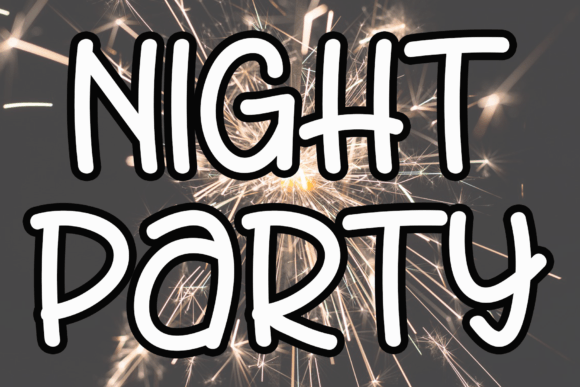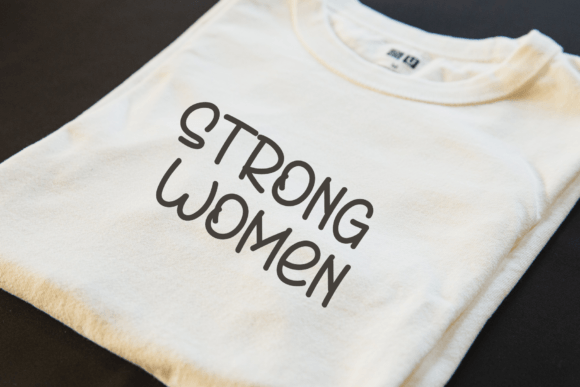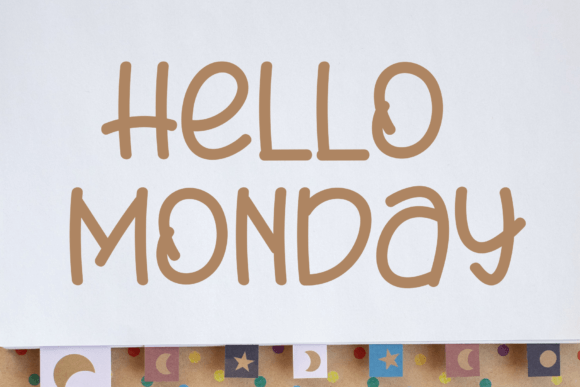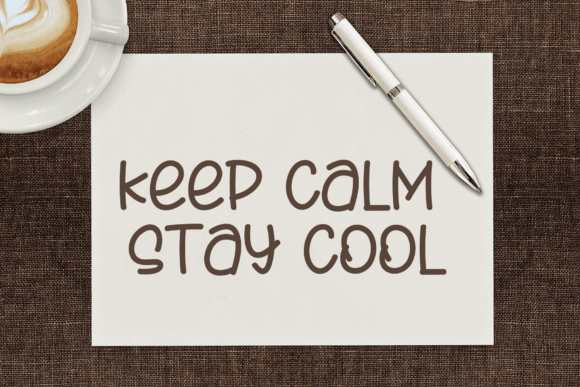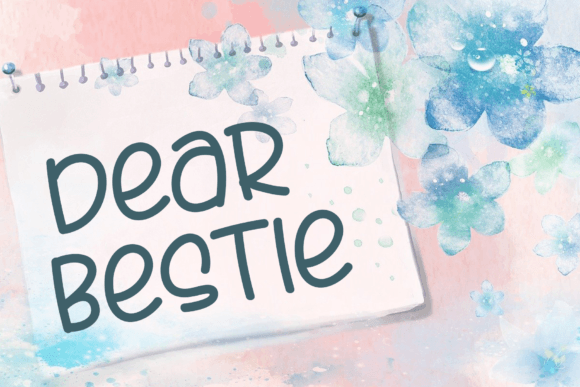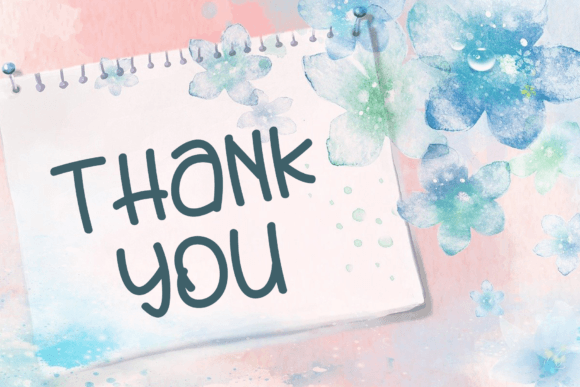
Happy New Year Font: The Ultimate Guide to a Cool and Modern Sans-Serif Font
As the clock strikes midnight on December 31st, we bid adieu to the old year and welcome the new one with open arms. What better way to celebrate this joyous occasion than with a font that’s just as vibrant and exciting? Introducing the Happy New Year Font, a cool and modern sans-serif font that’s perfect for crafts, digital design, presentations, and creating stunning greeting cards.
What Makes Happy New Year Font So Special?
Happy New Year Font is more than just a font – it’s an experience. Its clean and sleek design makes it versatile enough to be used for a wide range of projects, from DIY crafts to professional presentations. Whether you’re a designer, crafter, or simply someone who loves to get creative, this font has the potential to become your go-to font for any occasion.
Key Features of Happy New Year Font
- Modern Sans-Serif Design: Happy New Year Font boasts a modern sans-serif design that’s perfect for creating visually appealing projects.
- Clean and Legible: The font’s clean lines and simple shapes make it easy to read and understand, even at small sizes.
- Versatile: Use Happy New Year Font for crafts, digital design, presentations, greeting cards, and more.
Uses for Happy New Year Font
Happy New Year Font is perfect for a variety of projects, including:
- Crafts: Use Happy New Year Font to add a personal touch to your DIY crafts, such as scrapbooking, card making, and iron-on designs.
- Digital Design: Create stunning digital projects, such as social media graphics, blog posts, and email newsletters, with Happy New Year Font.
- Presentations: Add a professional touch to your presentations with this modern and clean font.
- Greeting Cards: Create beautiful and personalized greeting cards for any occasion, including New Year’s Eve, birthdays, and holidays.
Tips for Using Happy New Year Font
Here are some tips for getting the most out of Happy New Year Font:
- Experiment with Sizes and Colors: Try out different font sizes and colors to add visual interest to your projects.
- Pair with Other Fonts: Combine Happy New Year Font with other fonts to create a unique and eye-catching design.
- Use for Headings and Titles: Use Happy New Year Font for headings and titles to add a pop of personality to your projects.
In conclusion, Happy New Year Font is a versatile and modern sans-serif font that’s perfect for designers, crafters, and anyone looking to add a touch of personality to their projects. With its clean design, legibility, and ease of use, this font has the potential to become your go-to font for any occasion. So why not give it a try and start creating stunning projects that will leave a lasting impression?